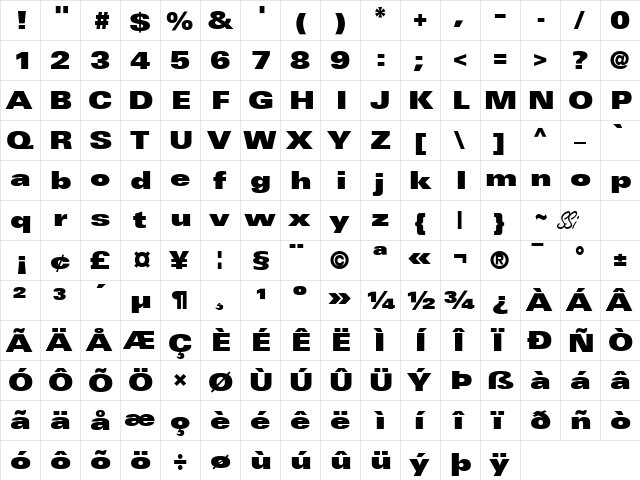
Nova Ultra Expanded SSi Extra Black Expanded
Design Context for Nova Ultra Expanded SSi Typeface
Nova Ultra Expanded SSi offers clean, dependable letterforms without strong stylistic allegiance, making it a practical choice for designers who need flexibility.